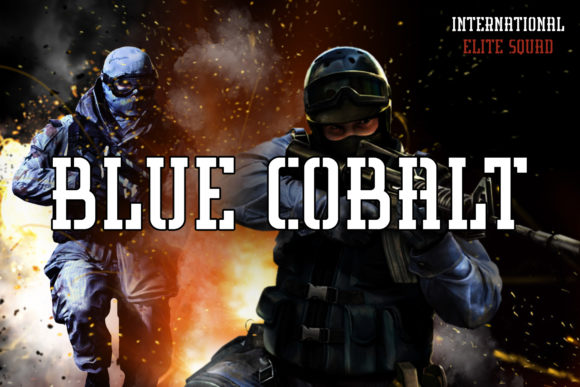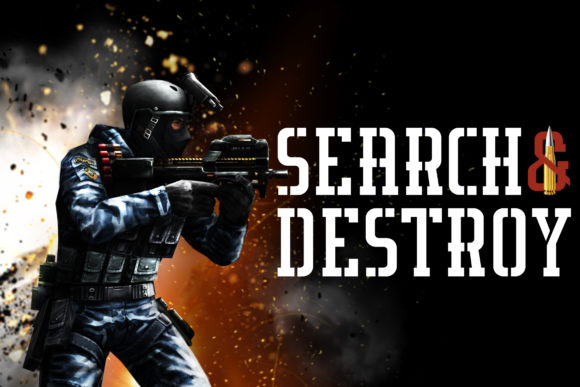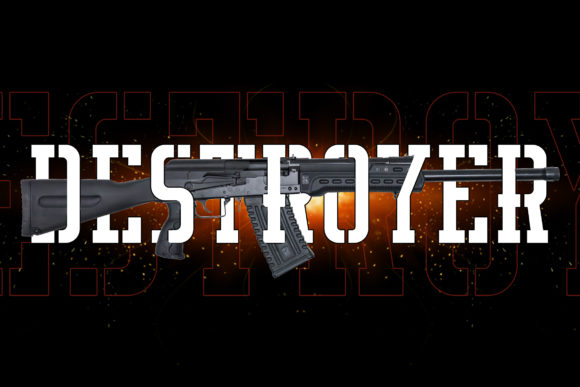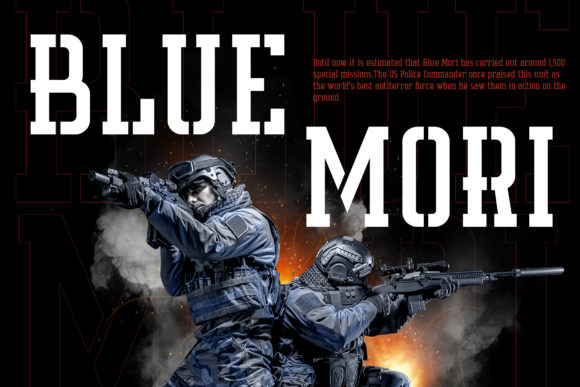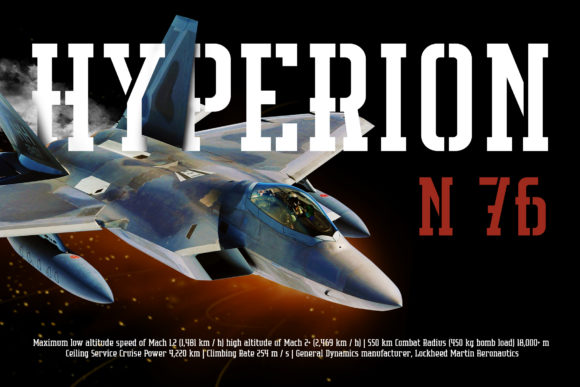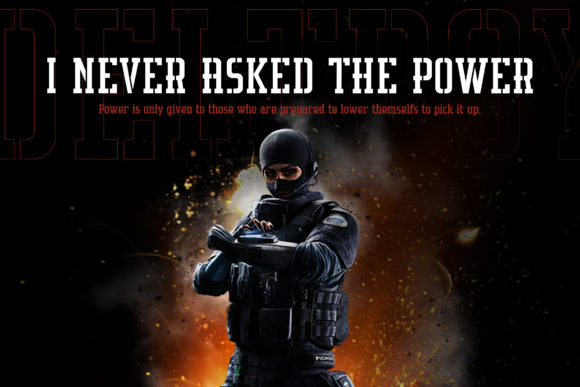
Discover the Elegance of Deltory Font: A Serif Masterpiece
In the realm of typography, a font can make or break the visual appeal of a design. For designers and crafters seeking a serif font that exudes elegance and sophistication, Deltory Font is an exceptional choice. Carefully handcrafted to become a true favorite among typography enthusiasts, Deltory is a versatile serif font that can elevate any design project.
The Characteristics of Deltory Font
Deltory Font is a meticulously crafted serif font, designed to deliver outstanding performance in various design contexts. Its key characteristics include:
- Serif Excellence: Deltory boasts traditional serif elements, providing a classic and timeless feel to any design.
- Handcrafted Precision: The font’s handcrafted nature ensures a level of detail and uniqueness that sets it apart from more generic fonts.
- Versatility: Deltory is designed to shine in any context, whether it’s used as a standalone headline or integrated into busy backgrounds.
Why Choose Deltory Font?
For designers and crafters, selecting the right font is crucial for the success of a project. Here are several reasons why Deltory Font stands out:
- Exceptional Legibility: The serif structure of Deltory enhances readability, making it perfect for both digital and print media.
- Elegant Aesthetic: Deltory’s elegant design adds a touch of sophistication to any project, making it ideal for branding, advertising, and editorial content.
- Adaptability: This font’s adaptability to different sizes and colors ensures that it remains effective across a wide range of applications.
Applications of Deltory Font
The versatility of Deltory Font makes it suitable for a variety of design projects, including:
- Branding and Logo Design: Deltory can help create a memorable brand identity with its distinctive serif style.
- Editorial and Magazine Design: The font’s classic feel makes it perfect for editorial content, adding a professional touch to magazines and journals.
- Advertising and Marketing: Deltory’s elegant aesthetic ensures that advertisements stand out, capturing the audience’s attention effectively.
- Web Design: For websites seeking a sophisticated and readable font, Deltory is an excellent choice, enhancing the user experience.
Tips for Using Deltory Font Effectively
To maximize the potential of Deltory Font, consider the following tips:
- Pair with Sans-Serif Fonts: Combining Deltory with sans-serif fonts can create a visually appealing contrast, enhancing the design’s hierarchy and readability.
- Experiment with Colors: While Deltory looks stunning in classic black and white, experimenting with colors can add a unique twist to your design.
- Pay Attention to Size: Ensure that the font size is chosen appropriately for the medium, maintaining legibility across different platforms.
Deltory Font is a remarkable serif font that offers designers and crafters a tool of unparalleled elegance and versatility. Its handcrafted nature, combined with its classic serif style, makes it an excellent choice for a wide range of design projects. Whether you’re working on branding, editorial content, or web design, Deltory is poised to become your true favorite. Embrace the sophistication and readability that Deltory brings to the table, and elevate your designs to new heights of aesthetic excellence.